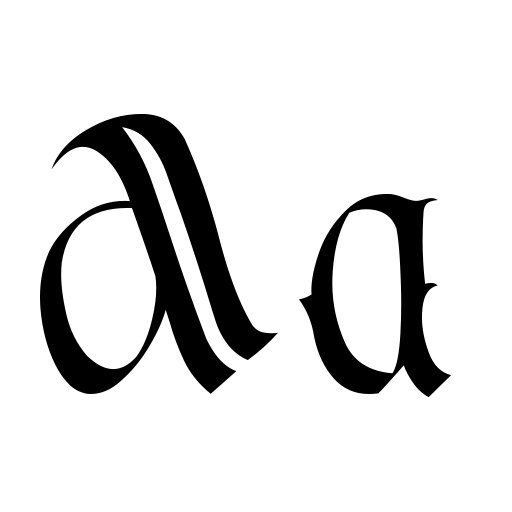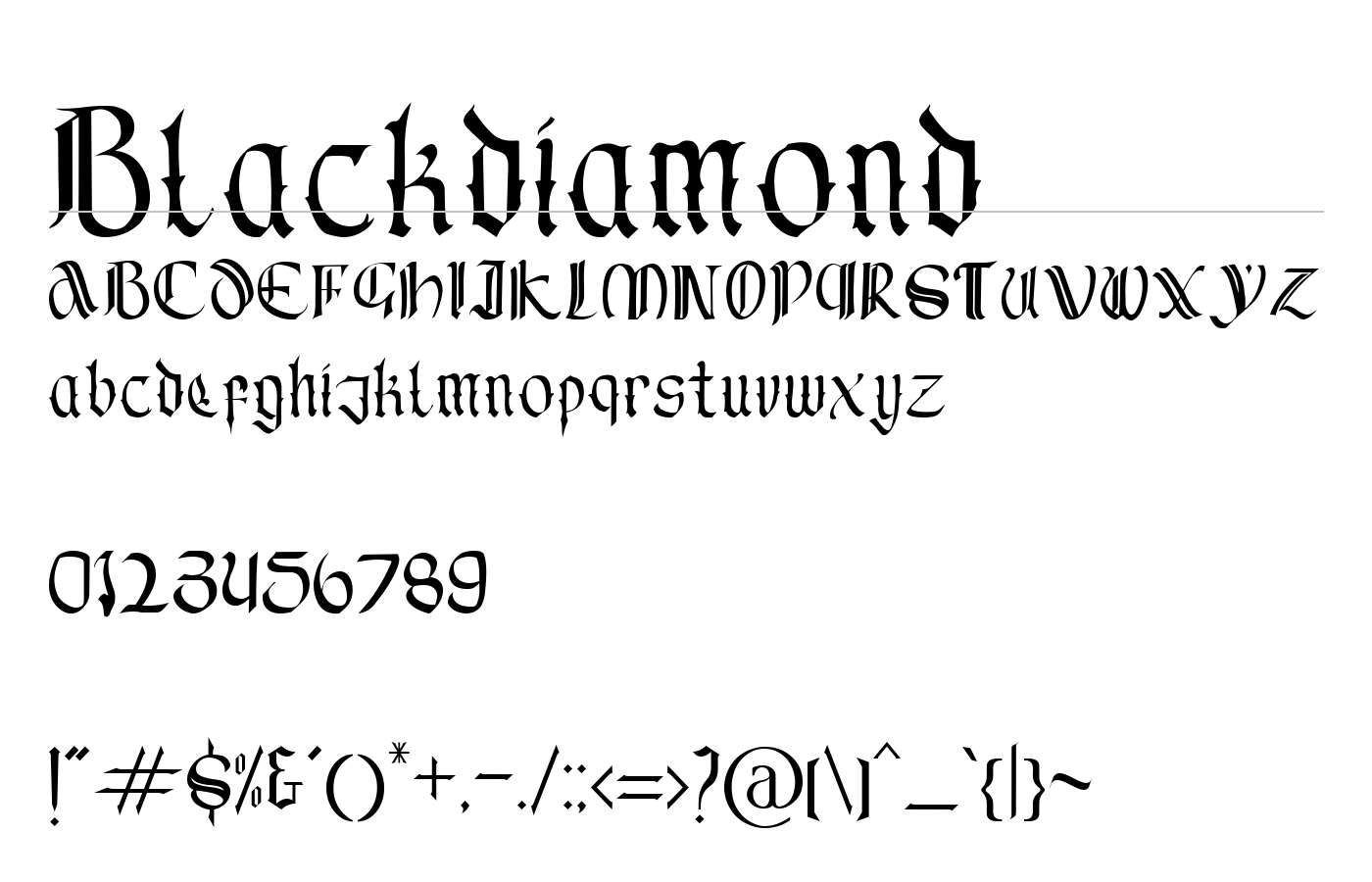
Blackdiamond is a distinctive blackletter-inspired serif font with sharp, dramatic strokes and pointed terminals that evoke a gothic, medieval essence. Its strong contrast and elaborate details give it an elegant yet bold personality, making it ideal for luxury branding, editorial headlines, or impactful logos seeking a historic or mysterious vibe. This font works best in display settings where its unique character and intricate shapes can shine without sacrificing readability.
Blackdiamond Font
About Blackdiamond Font